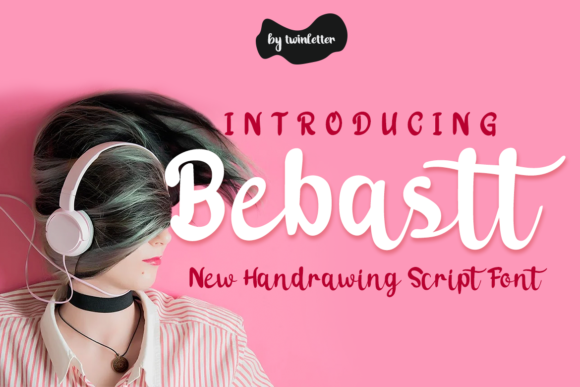
Unleash the allure of Bebastt, an exquisite script font that will captivate your heart. Its elegant strokes and playful curves evoke a sense of timeless artistry, adding a touch of whimsy and charm to your designs. Perfect for those seeking a font that exudes both sophistication and warmth, Bebastt promises to elevate your creative projects to new heights.
With Bebastt, your wedding invitations will blossom into masterpieces, adorned with captivating calligraphy that reflects the joy and romance of your special day. Its graceful characters will dance across the page, telling your love story in a language of elegance and beauty. Bebastt will transform your branding efforts, lending a touch of distinction and memorability to your logo and marketing materials.
From heartfelt letters and heartfelt notes to eye-catching social media posts and website designs, Bebastt will infuse your words with an irresistible charm. Its versatility extends to a myriad of creative endeavors, from elegant wedding designs to enchanting invitations, from personalized signatures to striking logos and labels. With Bebastt, your imagination knows no bounds.
Bebastt's allure lies in its ability to evoke emotions and create lasting impressions. Its timeless appeal will resonate with your audience, leaving them captivated by your designs. With Bebastt, you have the power to craft visual stories that touch hearts and leave an indelible mark.